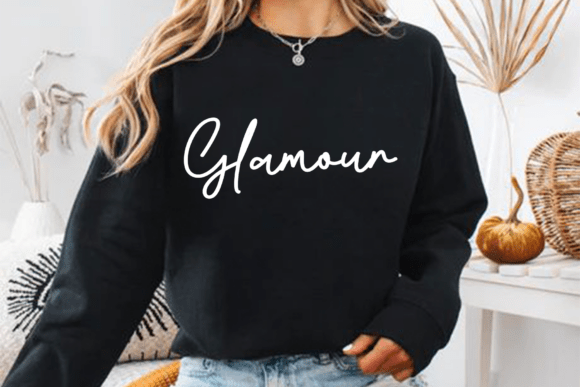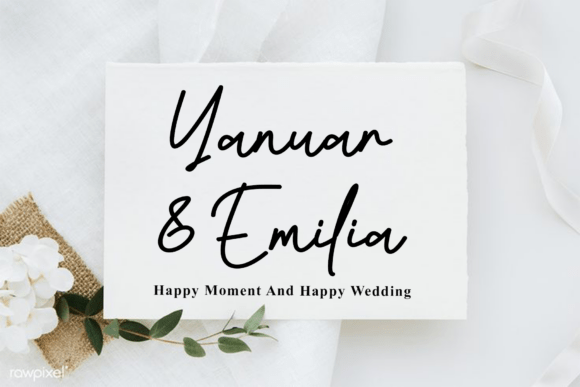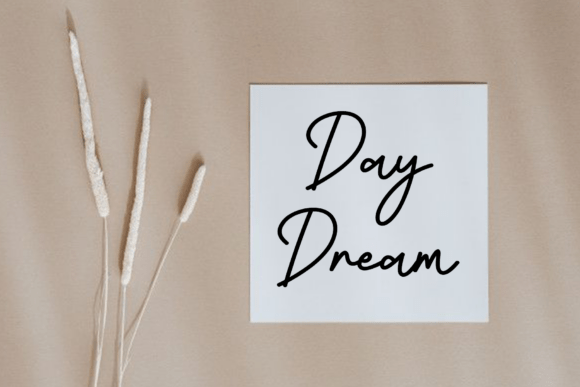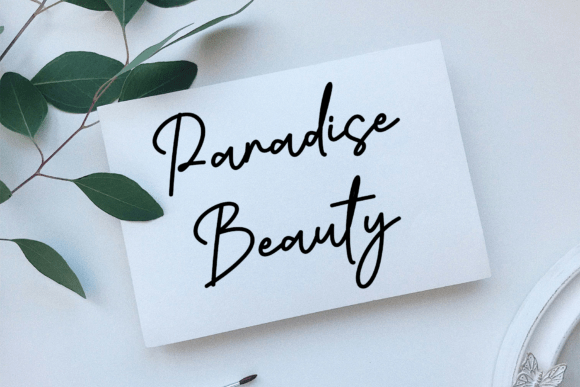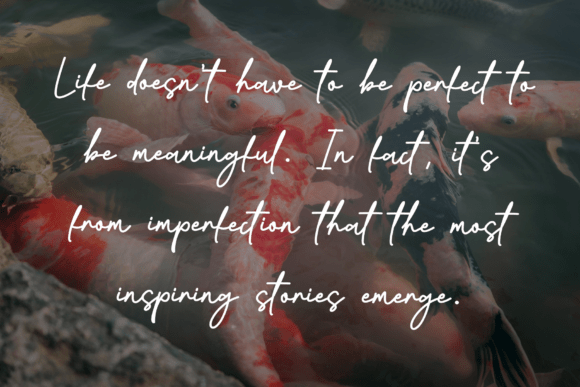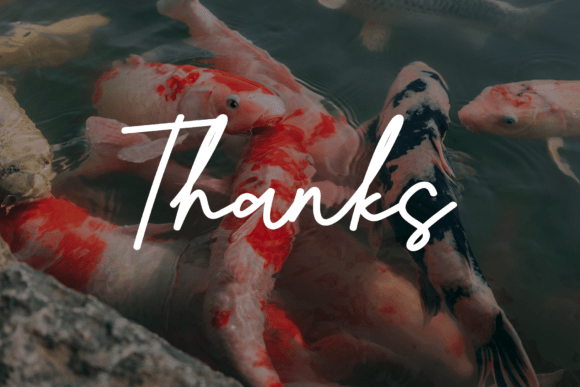
Introduction to Baby Salmon Font Font
Fonts play a crucial role in design, and the Baby Salmon Font font is a typeface that brings both character and versatility to any project. Whether you’re working on a branding project, a website, or a print design, the Baby Salmon Font font offers a unique style that can elevate your work.
Baby Salmon is an elegant and fluid handwritten script font that captures the essence of a modern, sophisticated typeface.
This font is a perfect choice for luxury wedding stationery, intimate event branding, high-end editorial signatures, and sophisticated lifestyle photography overlays .
Key Features of Baby Salmon Font Font
Why Choose Baby Salmon Font Font?
The Baby Salmon Font font is more than just a typeface – it’s a design tool that helps you communicate your message with style and clarity. Its unique character set and versatile design make it suitable for a wide range of applications, from elegant invitations to bold headlines.
With its carefully crafted letterforms and balanced proportions, the Baby Salmon Font font ensures readability and visual appeal across all mediums.
What makes Baby Salmon Font font special?
The Baby Salmon Font font stands out with its unique design, exceptional readability, and versatility across various design applications.